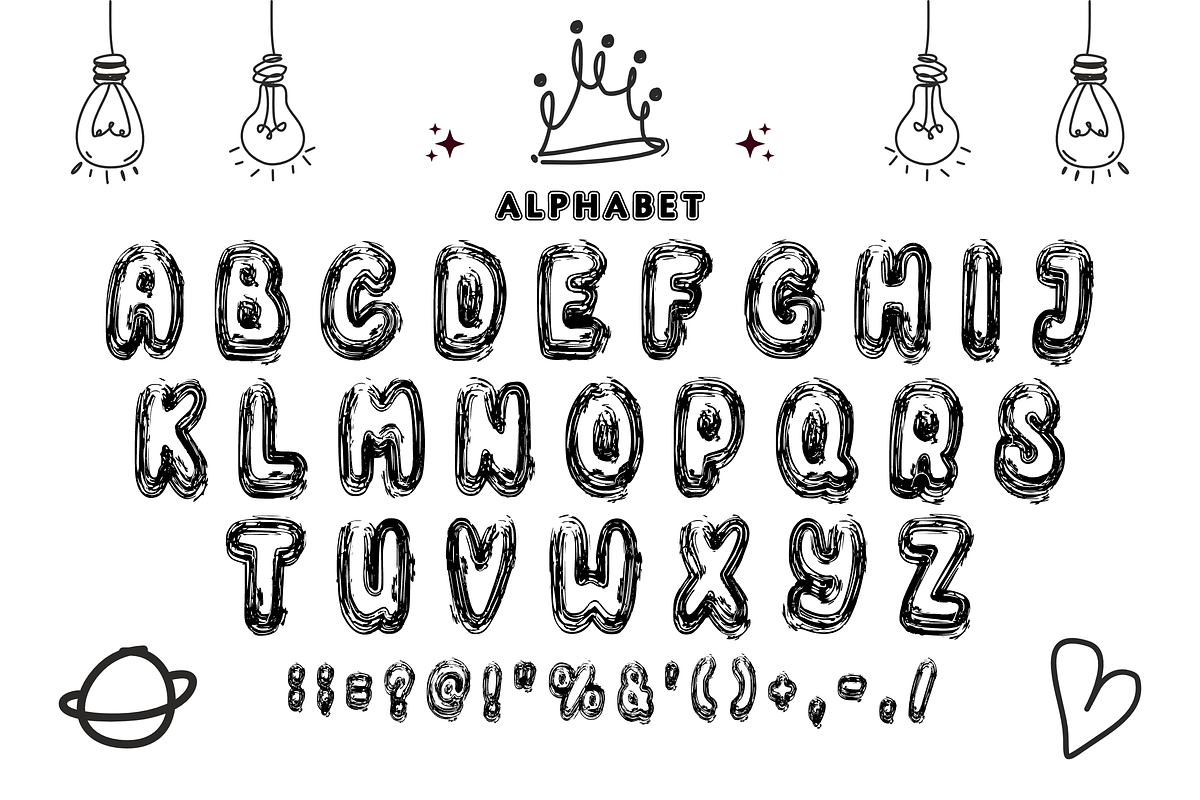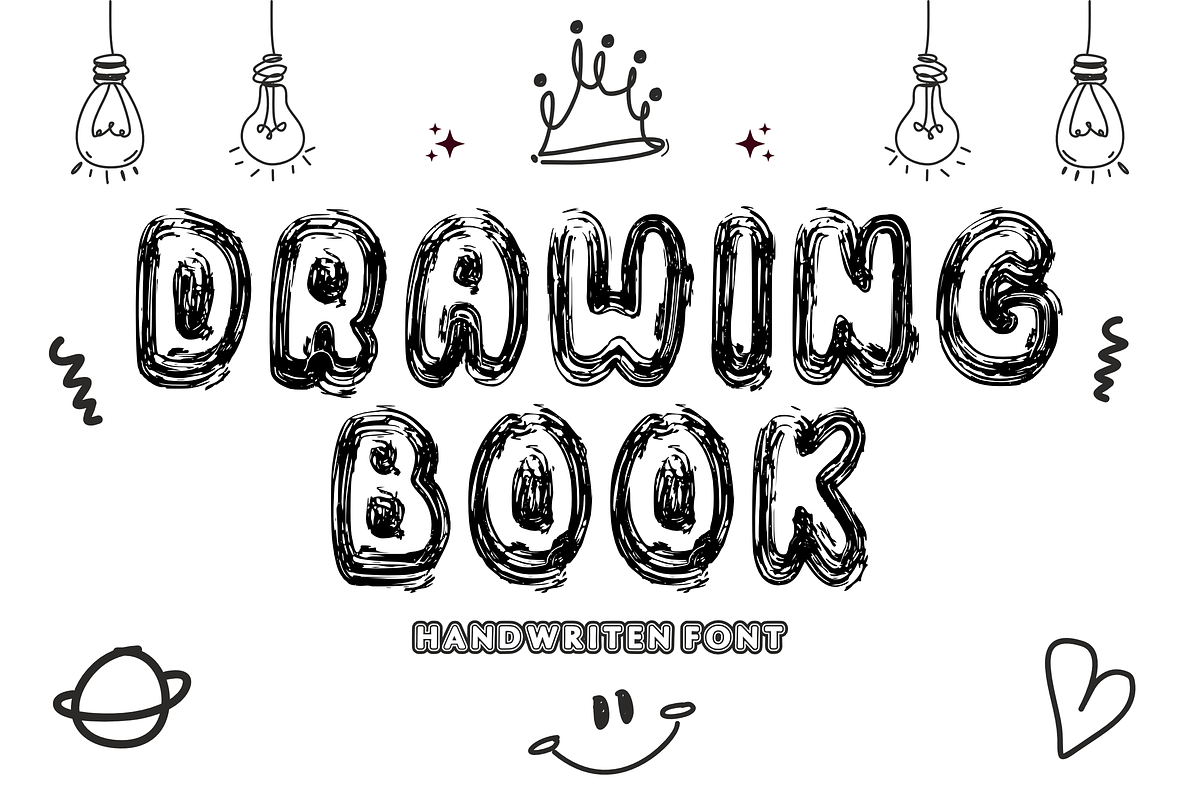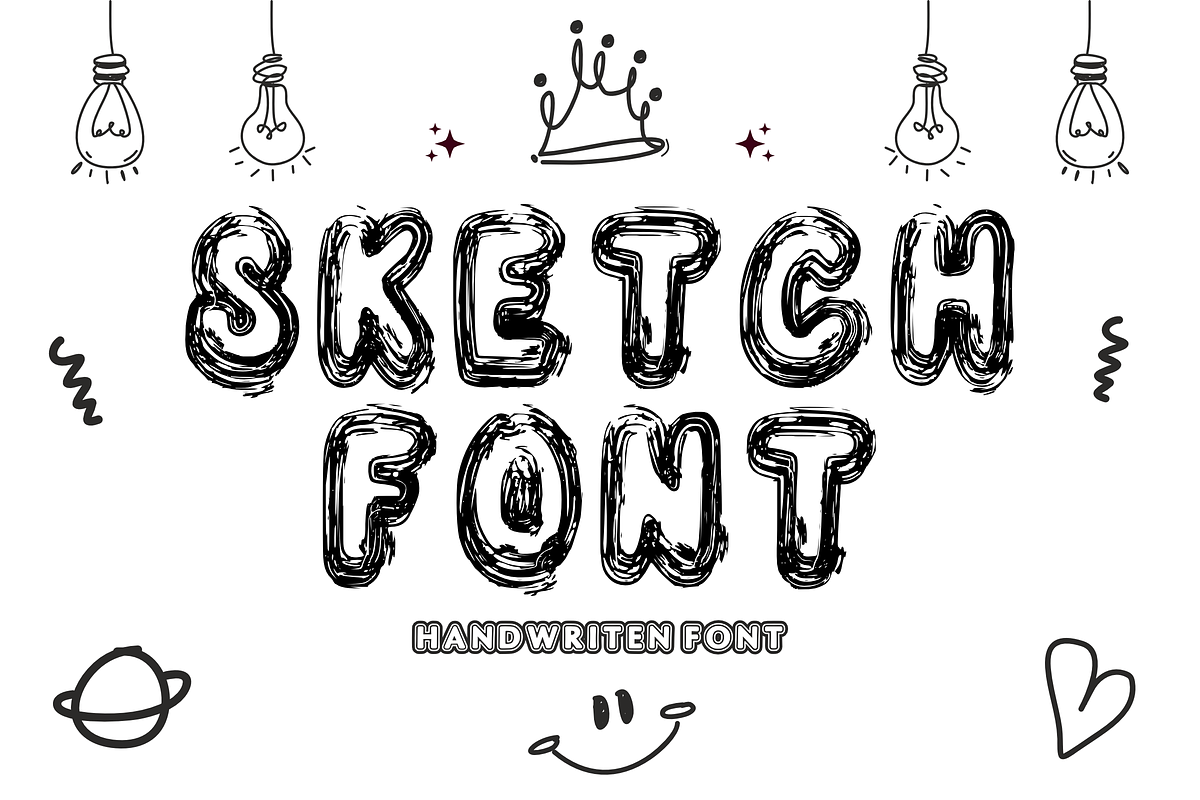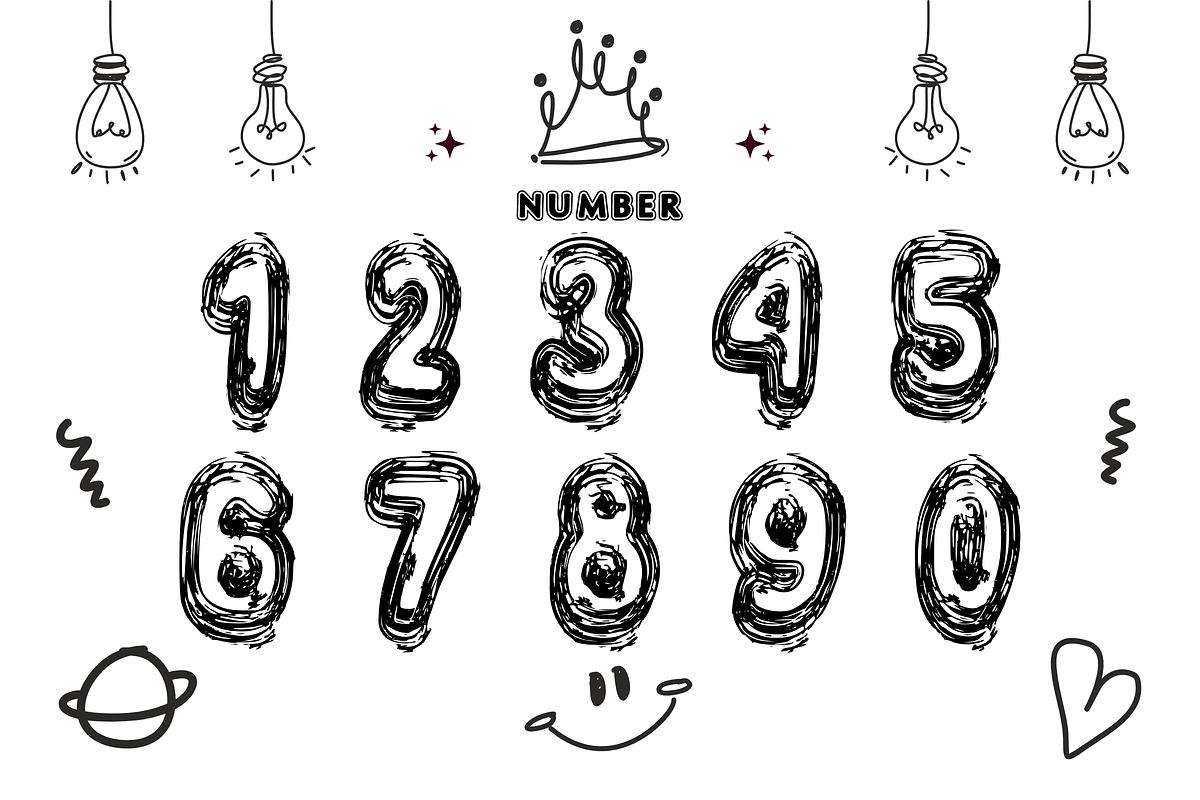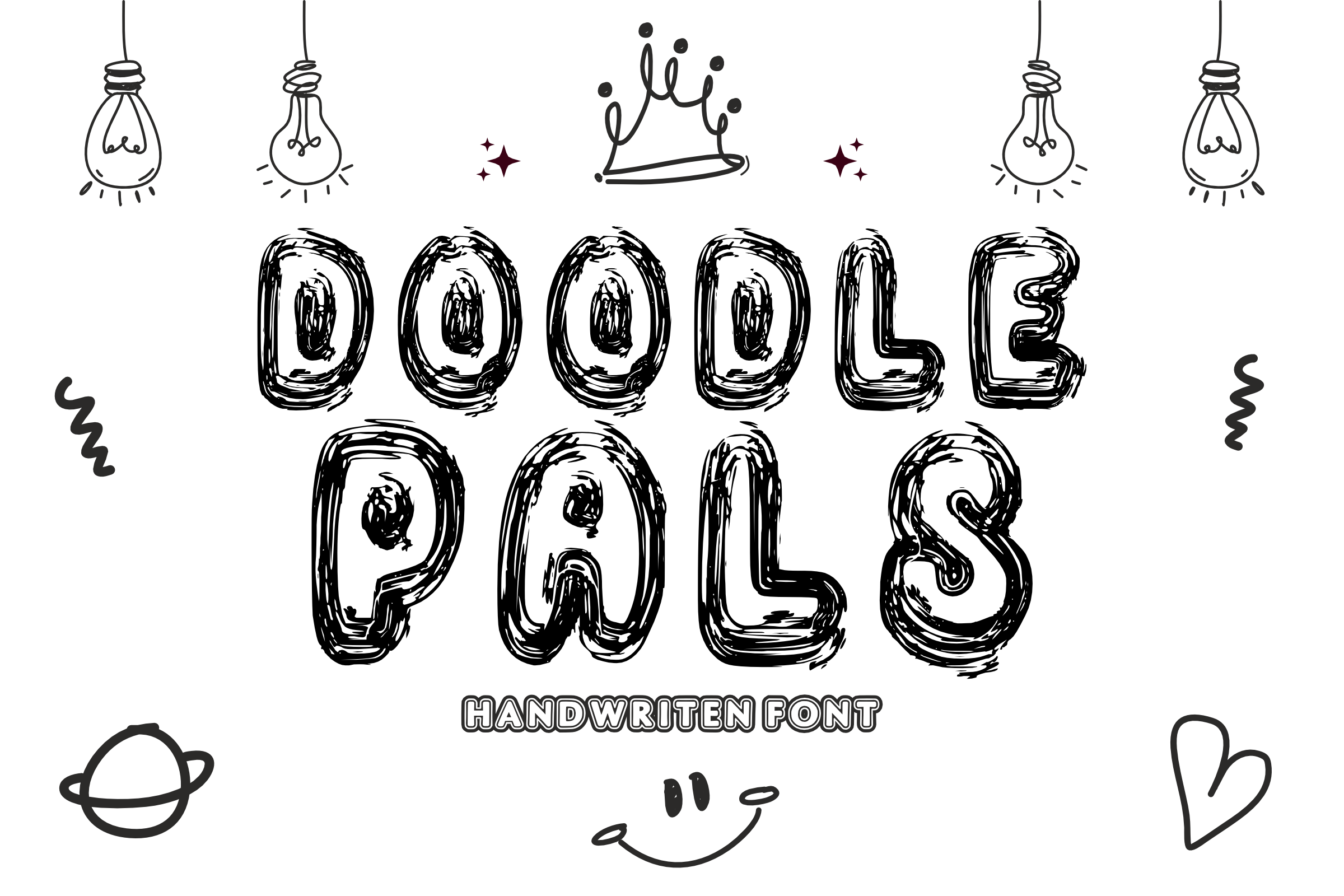
Doodle Pals - Sketchy Display Font
Add a raw, whimsical, and hand-crafted touch to your creative projects with Doodle Pals! This unique display font features a bold, heavily scribbled sketch texture that gives every character an authentic, hand-drawn doodle vibe. It’s the ultimate choice for making headlines pop with artistic, playful, and carefree energy.
Ideal for children's designs, creative teacher resources, and trend-focused crafting, Doodle Pals perfectly combines a fun sketch aesthetic with excellent readability. It is highly versatile, cuts beautifully on digital crafting tools like Cricut, and is fully optimized for a flawless look across all professional design software and print setups.
All-Caps Character Set (Chunky uppercase letters with a rich, detailed scribbled design)
Numbers & Simple Punctuation (Essential, clean symbols included)
Kids Craft Projects, Nursery Wall Art, & School Teacher Resources 🏫
Cricut, Silhouette, & DIY Fun Handdrawn Sublimation Projects ✂️
Children's Book Covers, Comic Illustrations, & School Posters 📚
Sketchy T-Shirt Designs, Playful Tote Bags, & Custom Merch 👕
Custom Die-Cut Stickers, Cute Planner Decals, & Creative Packaging 🎨
High-Impact YouTube Thumbnails, Creative Vlogs, & Social Media Layouts ✨